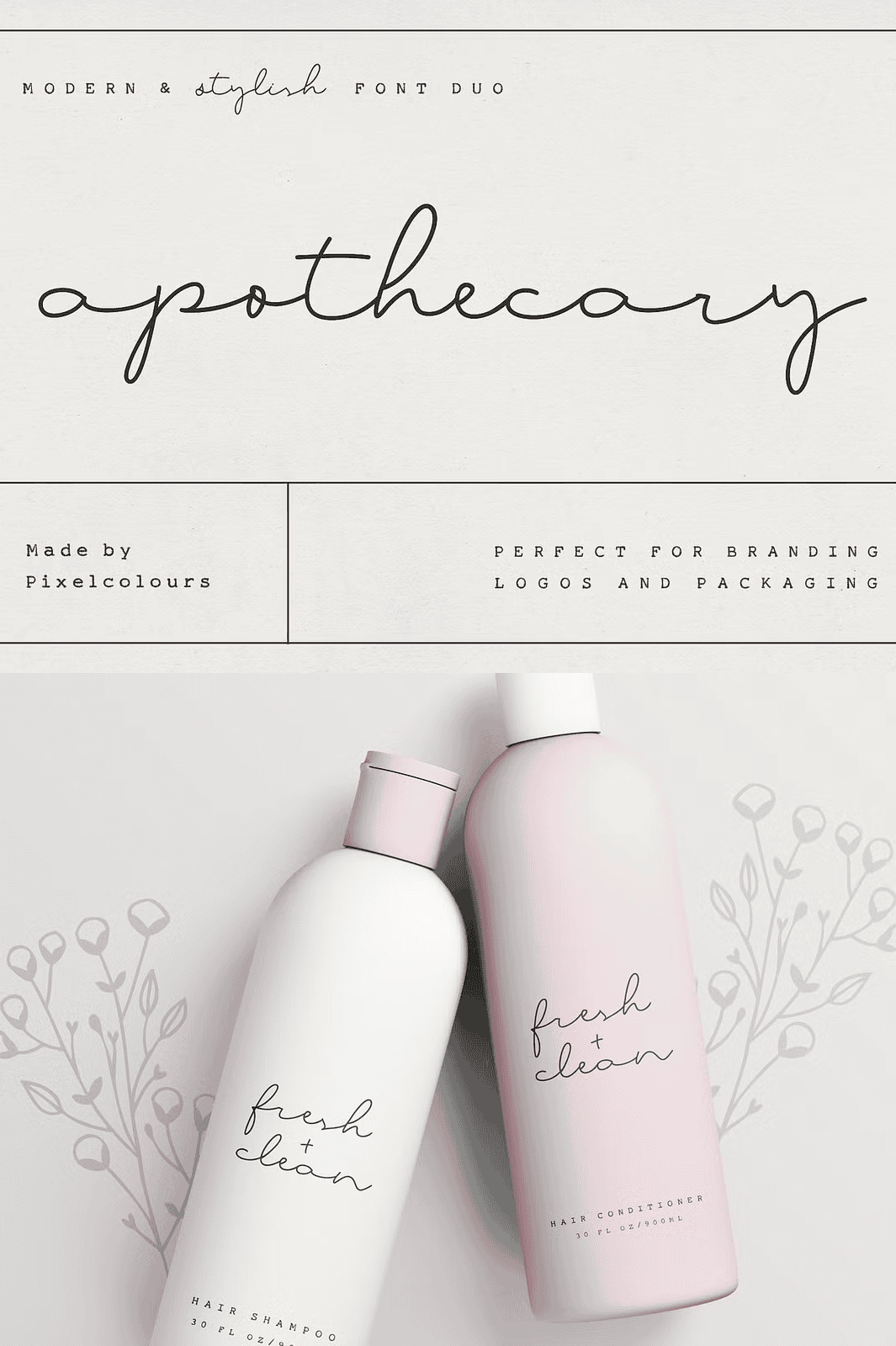
Welcome to the Apothecary Script Font Duo – a thoughtfully curated type family that merges the delicate grace of a flowing monoline script with the rugged authenticity of a true vintage typewriter font. This dynamic duo is not just a pair of fonts – it’s a creative revolution for designers who demand both style and substance.
Whether you’re crafting botanical labels for a boutique apothecary, designing wedding invitations that whisper romance, or building a unique branding identity, Apothecary delivers the perfect balance of sophistication and character. No more blending generic fonts. With this duo, your designs speak with personality, precision, and purpose.
Master the Flow with Apothecary Regular – A Sweet, Elegant Monoline Script
Apothecary Regular is a fluid, monoline script that captures the romantic motion of hand-drawn lettering while maintaining professional consistency. Its slender lines and sweeping curves flow naturally, lending an air of refinement to every word. Use it for:
– Elegant wedding invitations and save-the-dates
– Labeling handmade soaps, candles, and herbal tinctures
– Crafting premium stationery and greeting cards
– Creating stunning logo accents and branding elements
Each character is carefully designed to maintain rhythm and balance, ensuring your text reads beautifully in any context.
Anchor Your Design with Apothecary Typewriter – Authentic Retro Precision
Complementing the script is the Apothecary Typewriter font – a meticulously reconstructed version of an authentic 19th-century typewriter. This font brings a sense of heritage, nostalgia, and industrial charm. Use it for:
– Taglines and subtitle text in design compositions
– Small but impactful details on packaging and signage
– Capturing the essence of vintage advertising and archival documents
– Adding contrast and depth to your layout through texture and tone
Its uneven stroke weight, subtle imperfections, and tactile feel make it far more than a plain text font – it’s a storytelling tool.
Apothecary is engineered to give you maximum flexibility and creative freedom. Every detail has been optimized for professional use.
Rich Character Set for Dynamic Design
– Full uppercase and lowercase alphabets
– Complete numerals and punctuation marks
– Stylistic alternates for custom text variation
Wide Language Support for Global Projects
Supports Latin-based languages including:
English, French, German, Spanish, Italian, Portuguese, Dutch, Swedish, Norwegian, and more.
Includes full accented characters: AÀÁÂÃÄÅCÇDÐEÈÉÊËIÌÍÎÏNÑOØÒÓÔÕÖUÙÜÚÛWYÝŸỲŸÆŒßÞþ
Perfect for international branding, multilingual packaging, and global campaigns.
This font duo is ready to elevate your next project, whether you’re a freelance designer, small business owner, or creative agency. Combine the script with the typewriter to create compelling contrasts in layout — one flowing, one grounded – resulting in visual harmony and narrative depth.
Perfect for These Creative Applications
– Botanical and apothecary product labels and packaging
– Wedding invitations, programs, and thank-you cards
– Brand identity systems for niche lifestyle or wellness brands
– Vintage-style brochures, posters, and social media content
– Craft brewery or artisanal food branding with storytelling flair